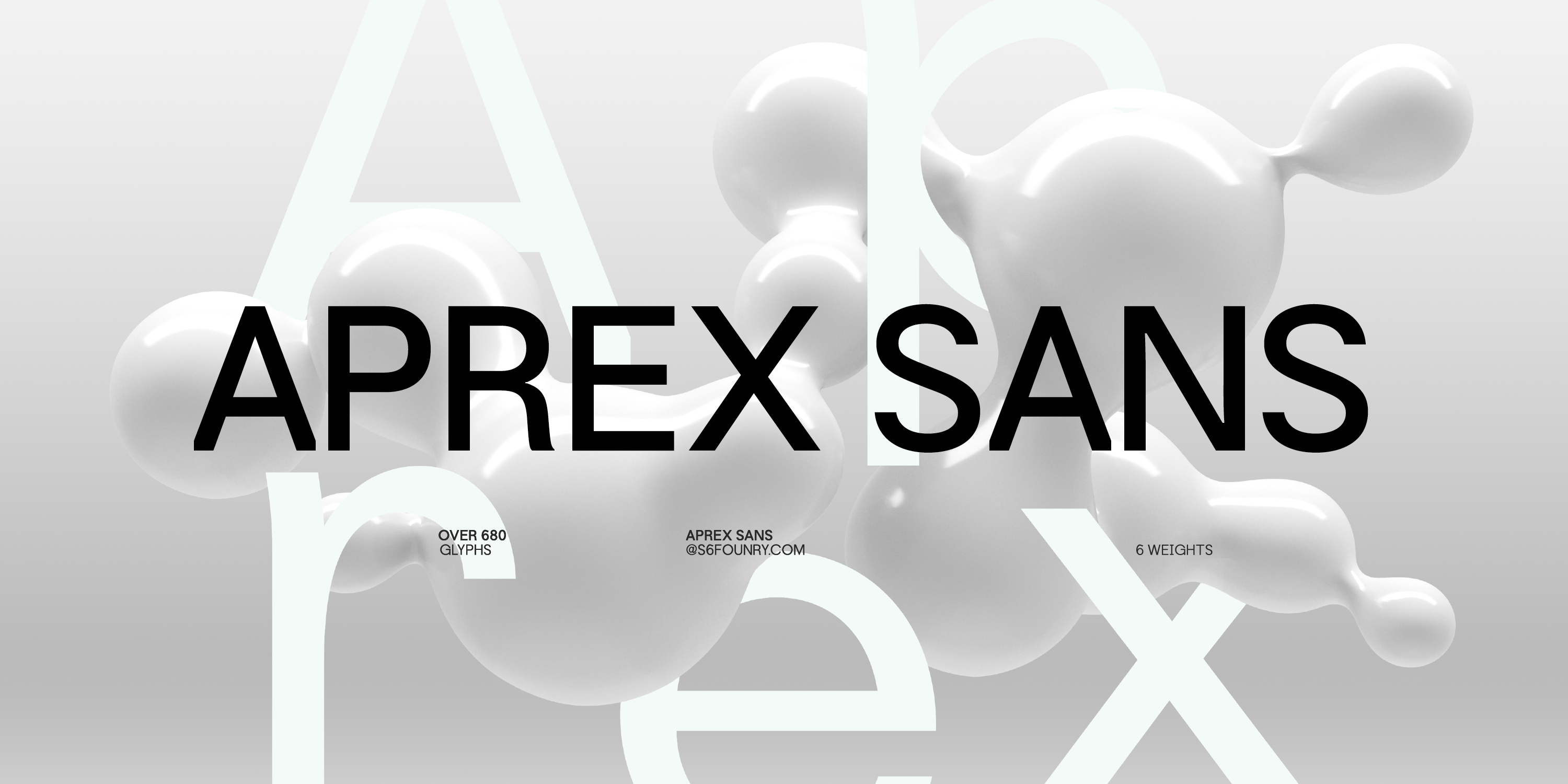
The Aprex Sans Font Free Download is a remarkably modern and highly versatile sans-serif typeface, making it an excellent choice for a broad spectrum of design applications that demand clarity, professionalism, and a contemporary edge. This adaptable font is perfectly suited for corporate branding, web and UI design, mobile applications, editorial layouts, packaging, and digital advertising. Imagine it providing the clean, authoritative typography for a financial institution's website, ensuring crystal-clear readability in a complex data visualization, or giving a sleek, minimalist aesthetic to a new tech gadget's marketing campaign. Its straightforward forms and exceptional legibility ensure your message is communicated effectively and efficiently across all platforms.
What makes Aprex Sans Font truly exciting is its ability to strike a perfect balance between neutrality and a distinct, modern character. It's not just another workhorse sans-serif; it possesses a subtle elegance and a meticulously crafted structure that allows it to perform flawlessly in diverse contexts without ever feeling generic. Its robust construction ensures it maintains its integrity and readability in both large display sizes and small body text, making it an incredibly reliable choice for any project. Designers will appreciate its understated sophistication and how it provides a solid yet stylish foundation for any visual communication, allowing the content to truly shine.
The Aprex Sans Font family typically offers an expansive range of weights and styles, making it exceptionally flexible for building sophisticated typographical hierarchies and nuanced visual expressions. You can often find a comprehensive spectrum of variations, including Thin, Light, Regular, Medium, SemiBold, Bold, ExtraBold, and Black, providing extensive control over visual emphasis and typographic texture. Most comprehensive versions also include corresponding Italic styles, further enhancing its utility for varied design needs, from subtle emphasis to dynamic headlines. These extensive options ensure that the Aprex Sans Font Free Download is an invaluable asset for designers seeking a dependable, high-quality, and aesthetically pleasing typeface for virtually any design challenge.